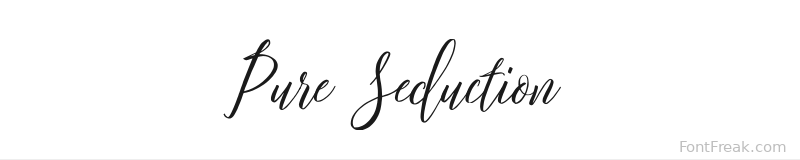
Pure Seduction
About Pure Seduction
Pure Seduction by BLKBK Fonts is an elegant script font that captures the essence of sophistication and charm. This font features a flowing, cursive style, characterized by its graceful curves and soft, sweeping lines. The stroke weight is varied, offering a beautiful contrast that enhances its visual appeal, while the spacing between letters maintains a balanced and harmonious look. The decorative elements, including the ornate swirls and flourishes, add a touch of romance, making it ideal for projects that require a personal touch.
This font is particularly well-suited for wedding invitations, where its delicate style can convey love and elegance. Additionally, it shines in branding for boutique shops, helping to create a memorable and inviting logo. Restaurant menus can also benefit from the Pure Seduction font, adding a sophisticated flair that enhances the dining experience. Moreover, content creators seeking to add an artistic element to their social media graphics will find this font to be a perfect choice, as it captures attention while remaining readable.
What sets the Pure Seduction font apart is its ability to blend elegance with readability, making it a favorite for both formal and casual applications. Whether you’re crafting a heartfelt invitation or designing eye-catching promotional material, this font offers a unique aesthetic that speaks to the audience. Experience the charm of this font with the Pure Seduction font free download and let your creativity flow.